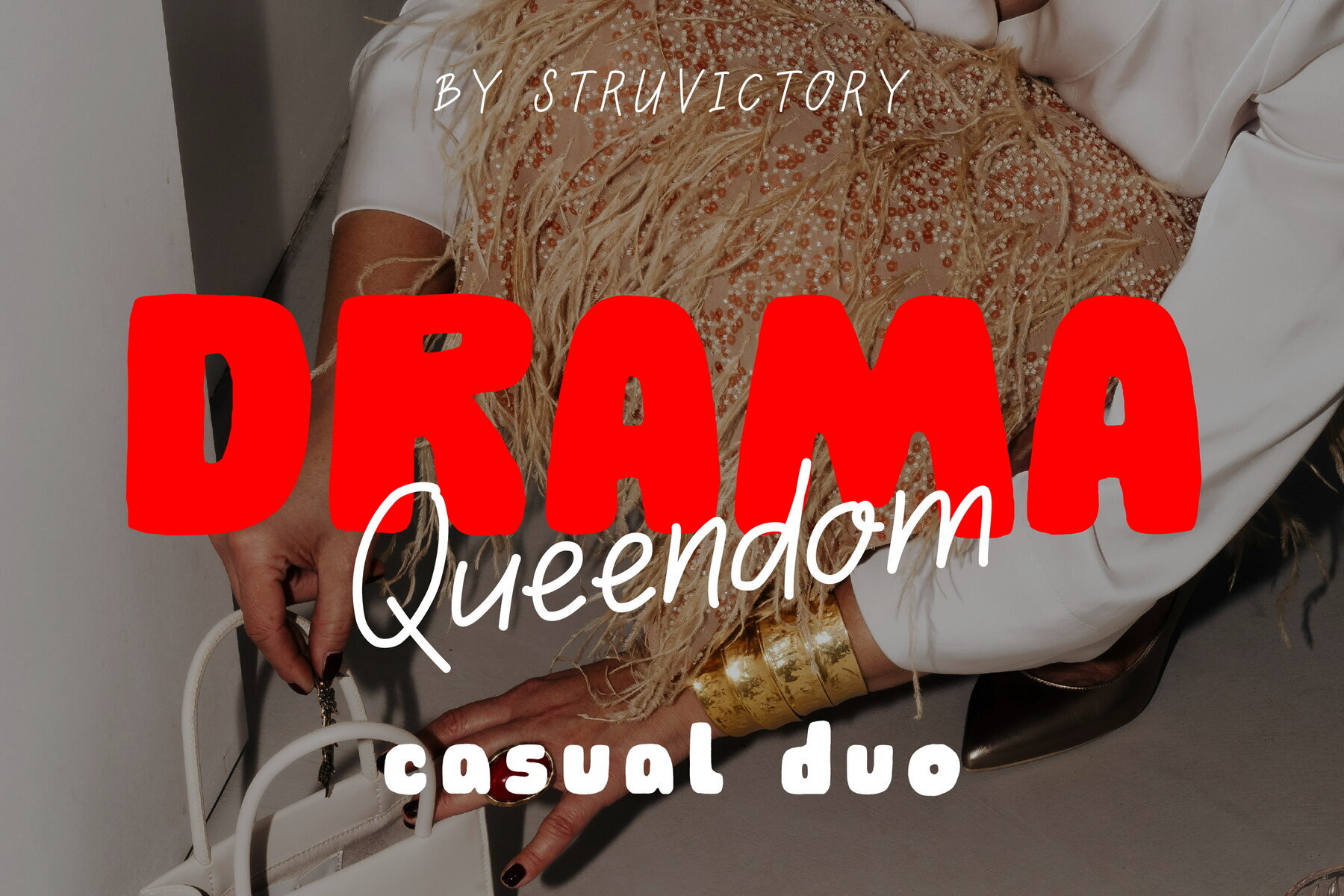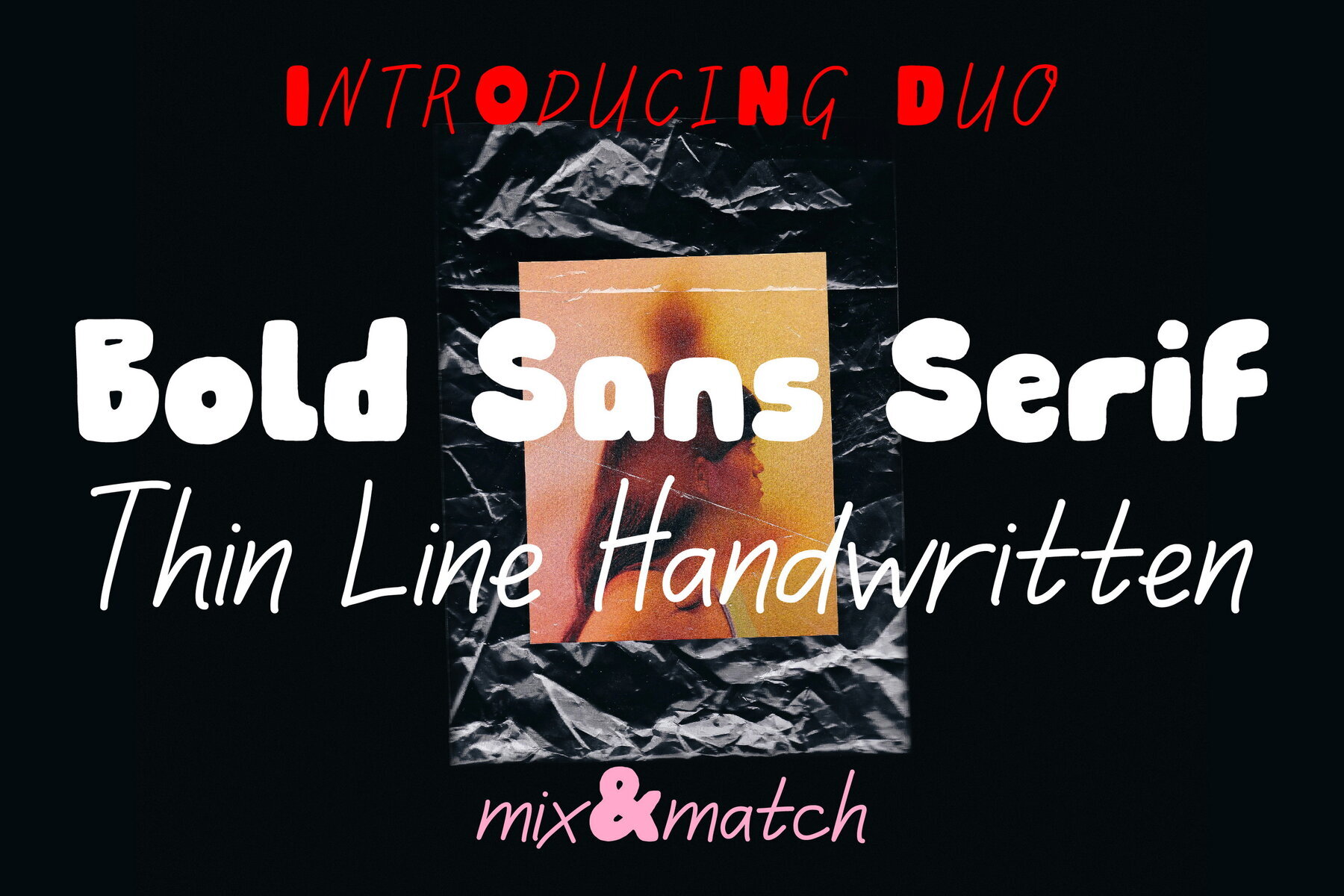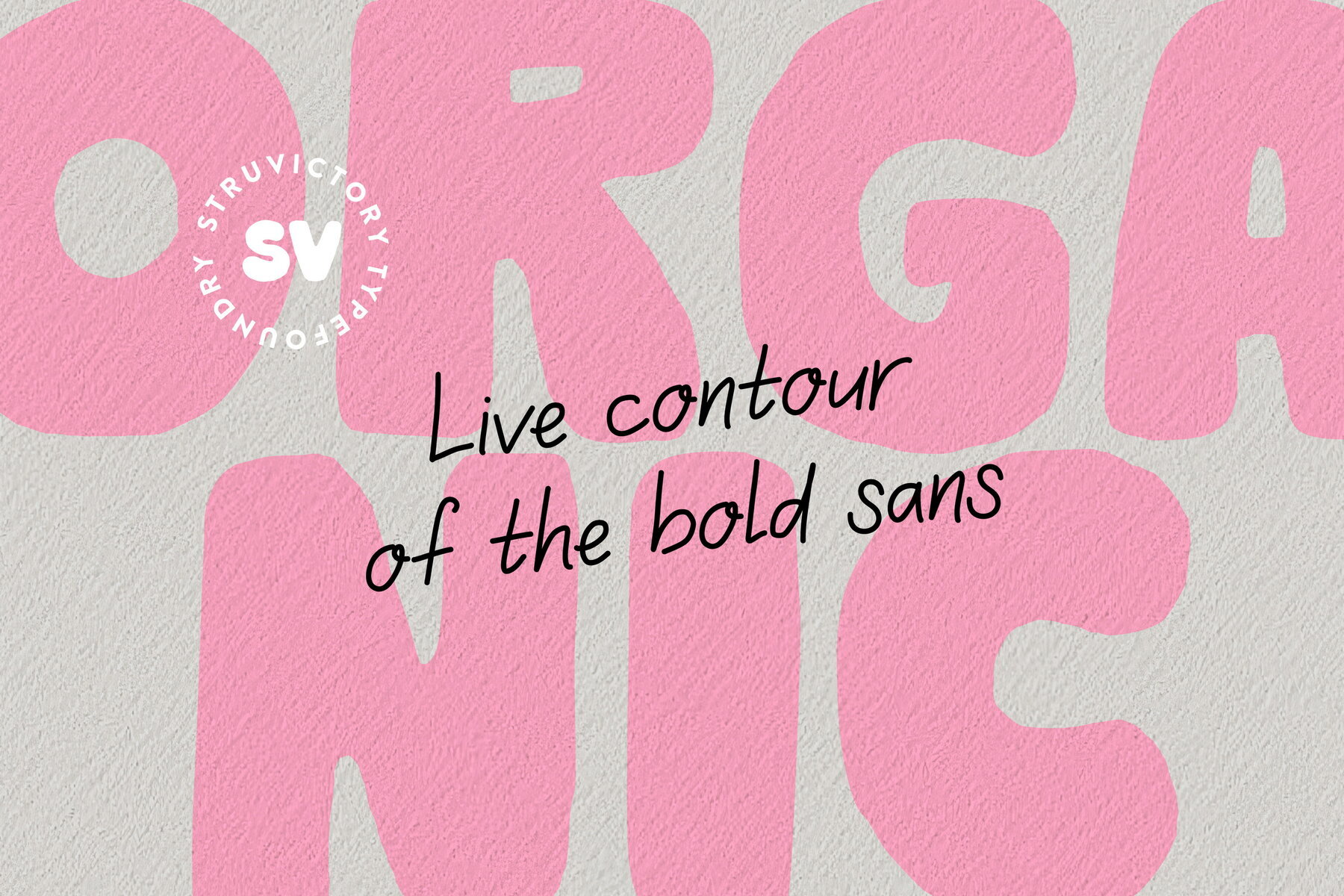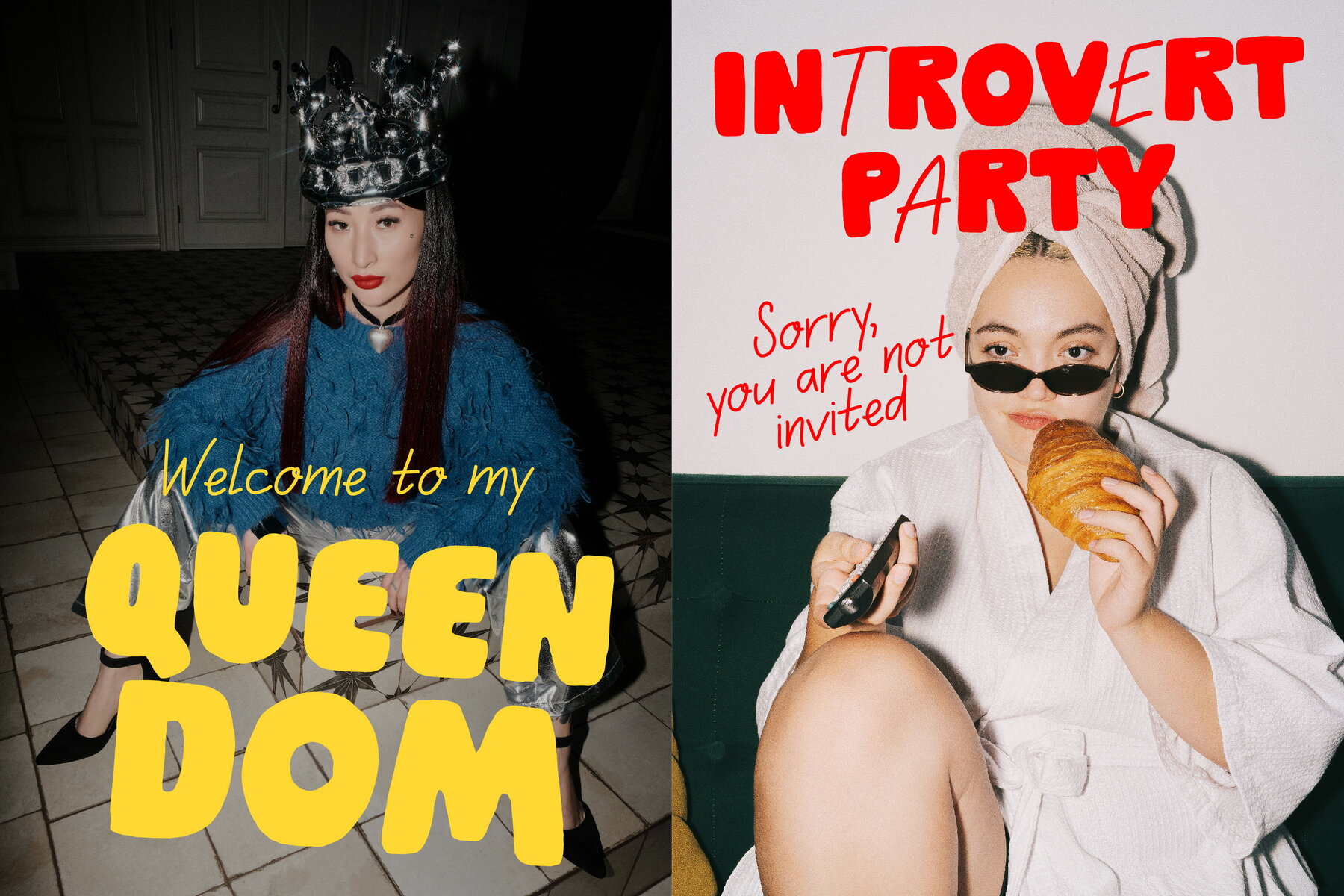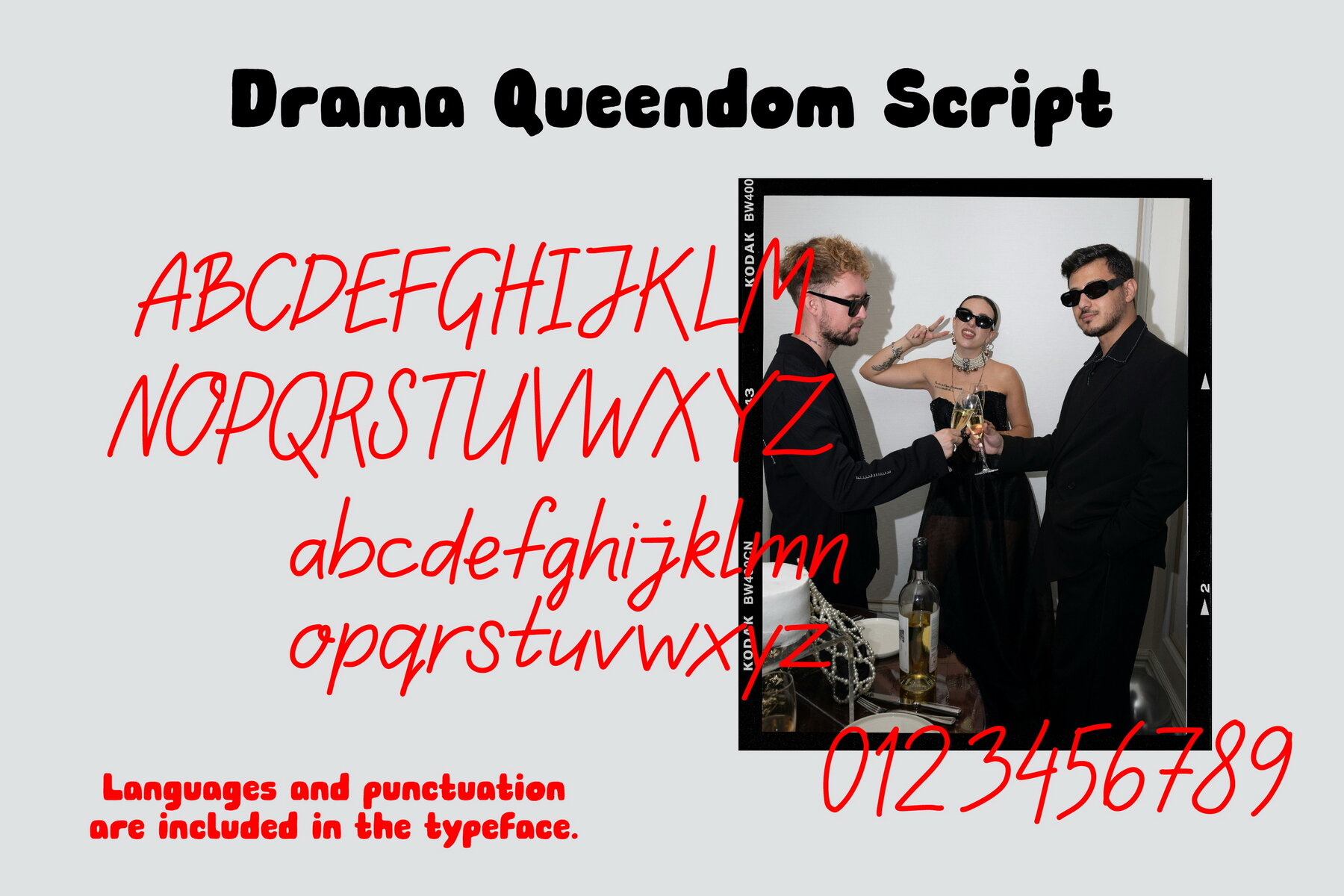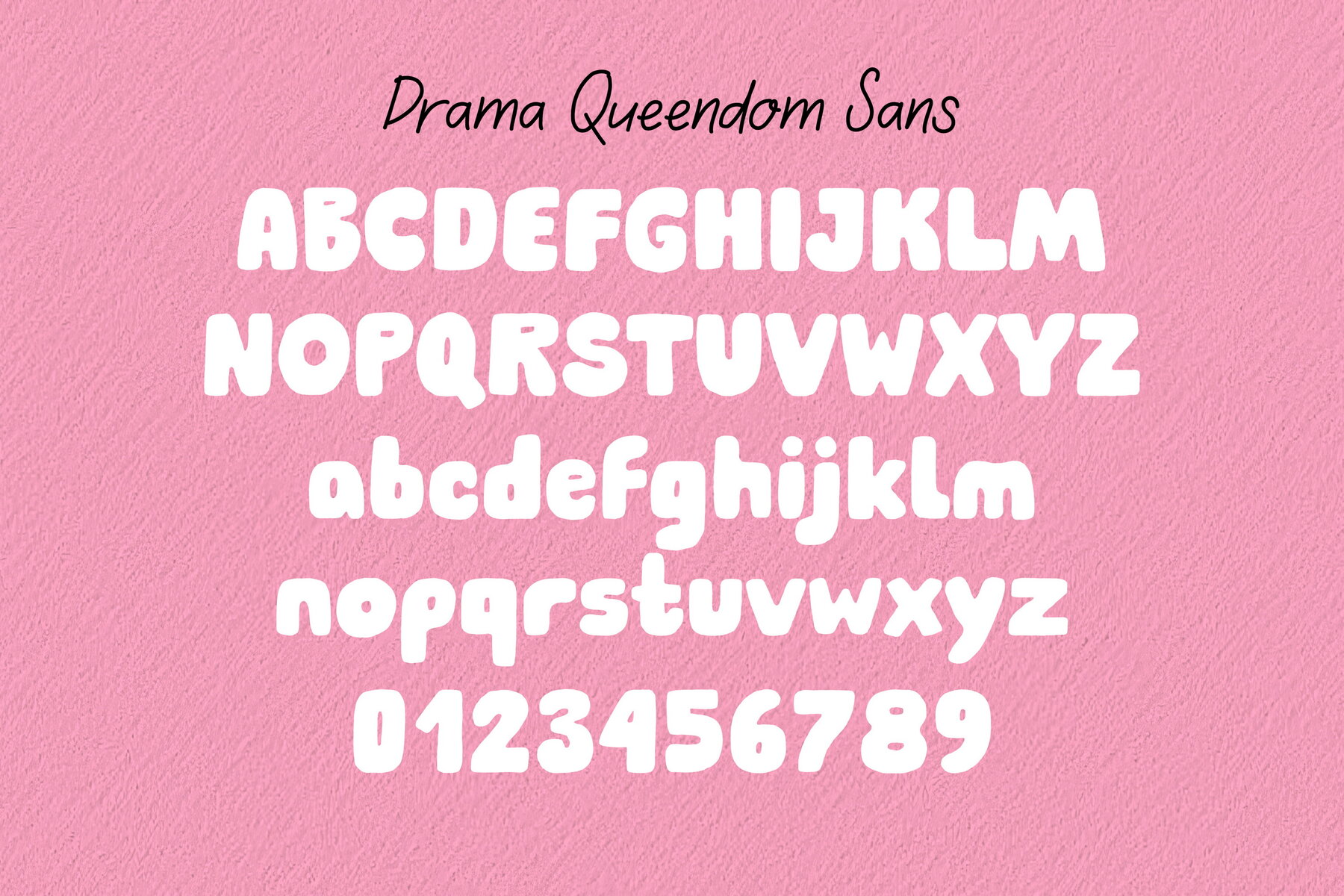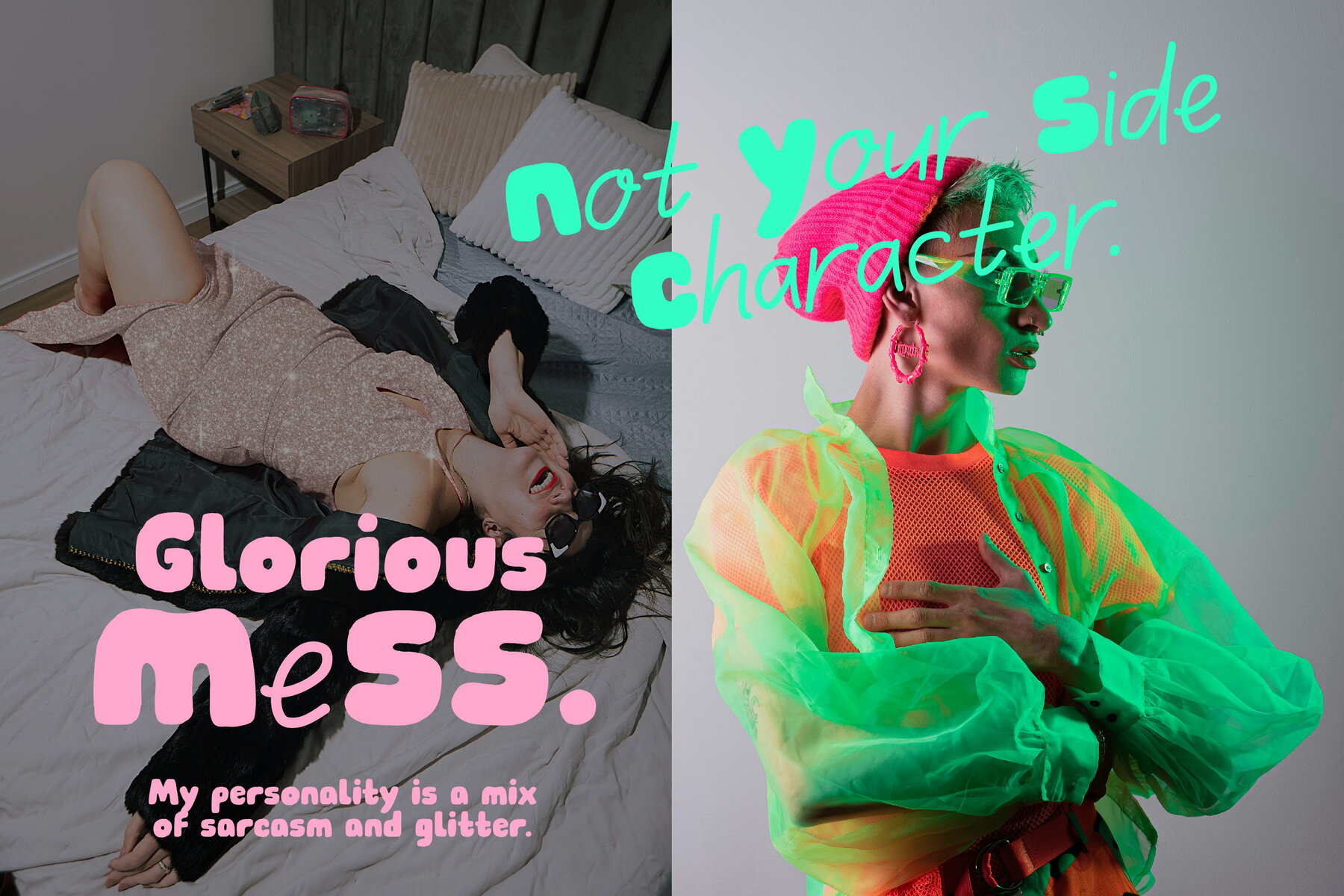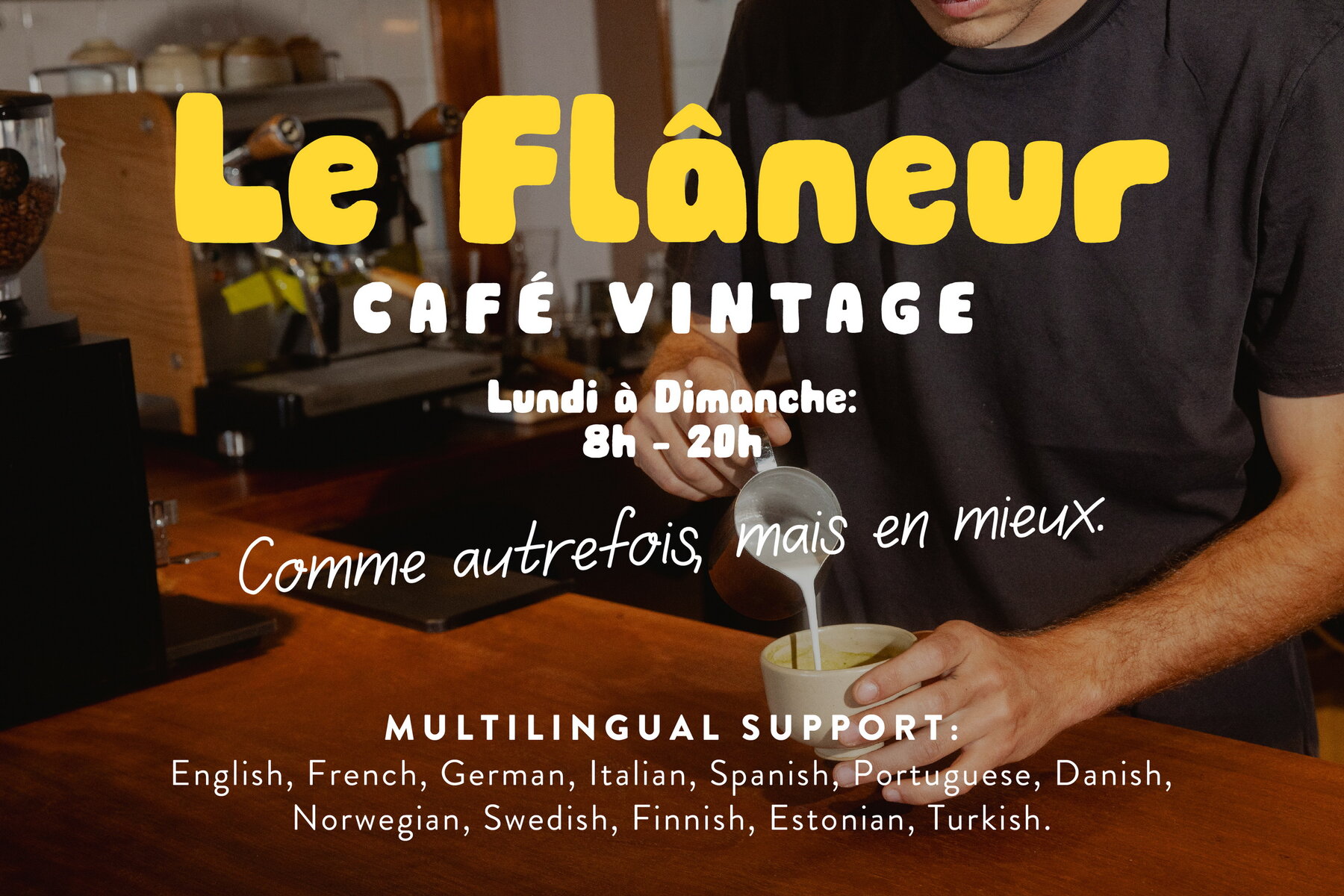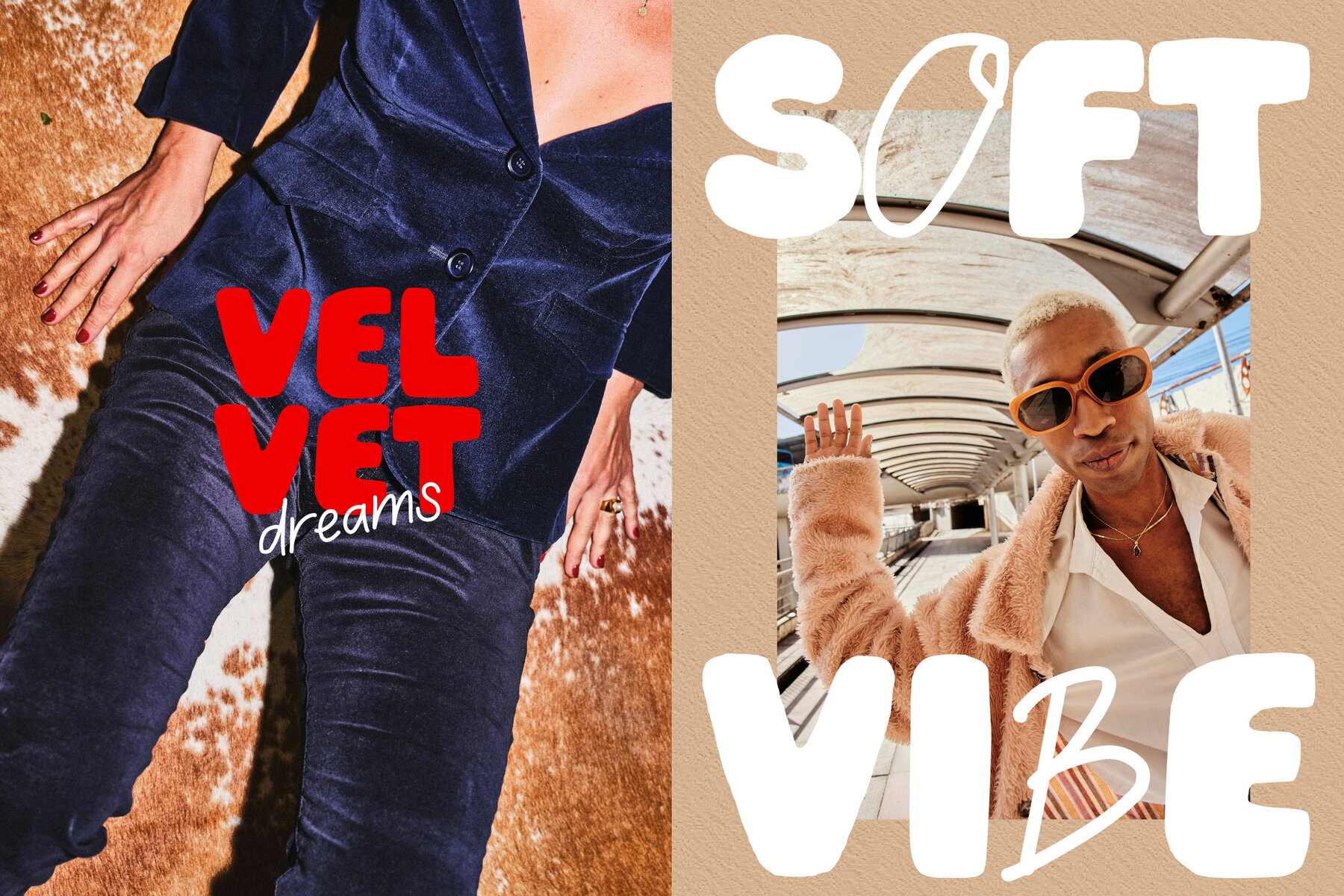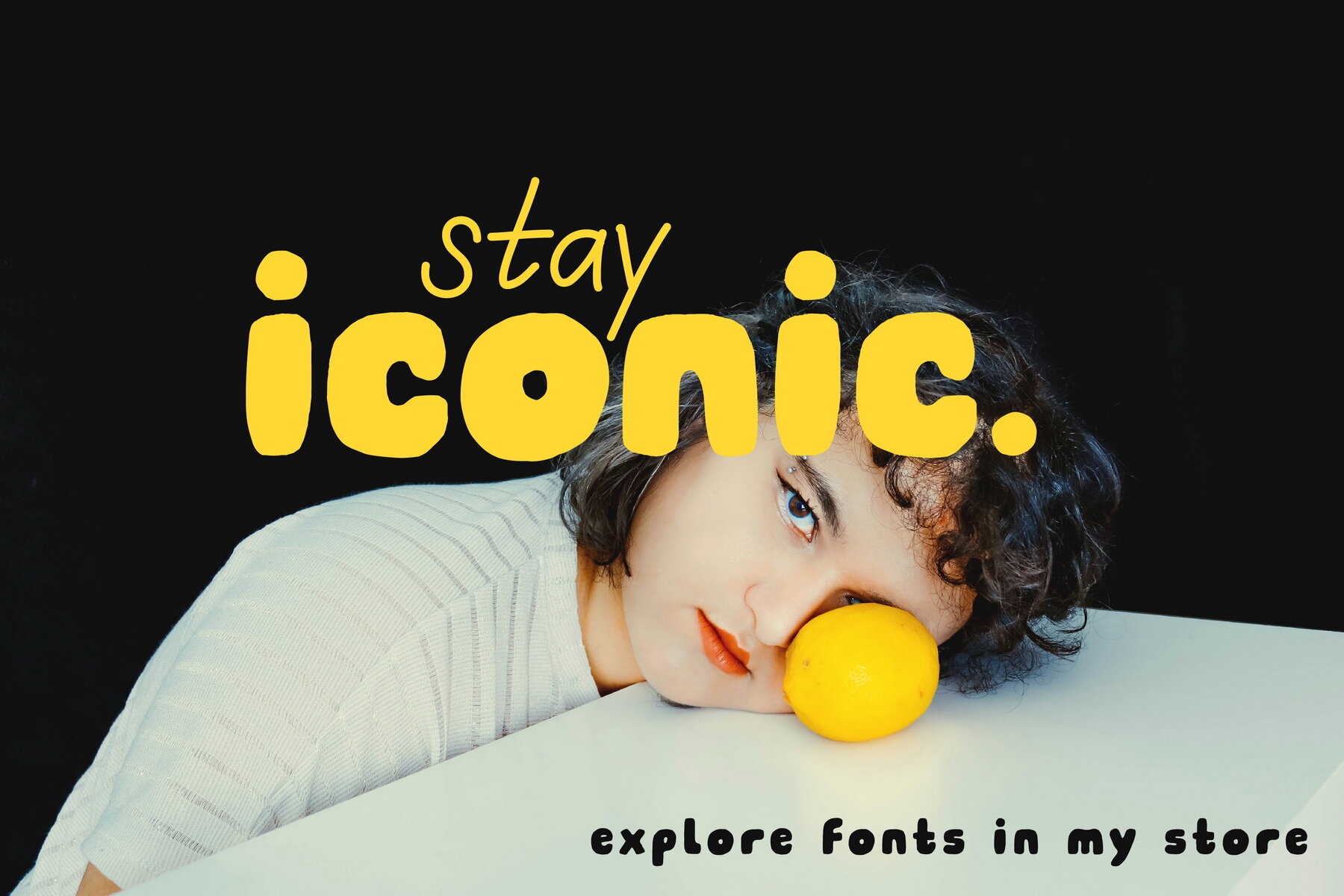
Drama Queendom Duo Font
Drama Queendom Sans
Drama Queendom Script
Drama Queendom is a daring font duo blending power and whimsy, perfect for modern design projects. The chunky sans serif exudes confidence, while the thin handwritten style introduces an effortless personal touch. This dynamic pairing is ideal for fashion branding, posters, social media graphics, and packaging, demanding both attitude and charm. Boasting a contemporary edge and expressive vibe, Drama Queendom is crafted for designers seeking iconic and memorable creations. With support for popular Latin-based languages, this typeface offers versatility across diverse design applications.Drama Queendom: A Bold and Playful Font Duo